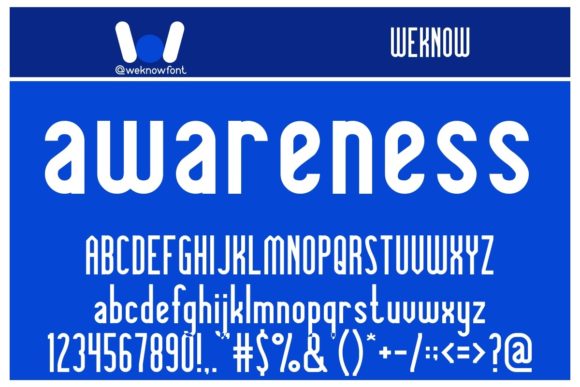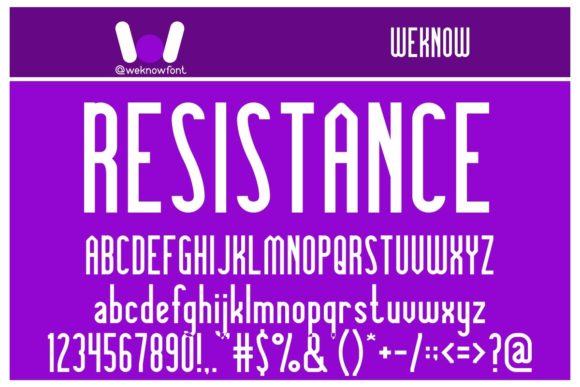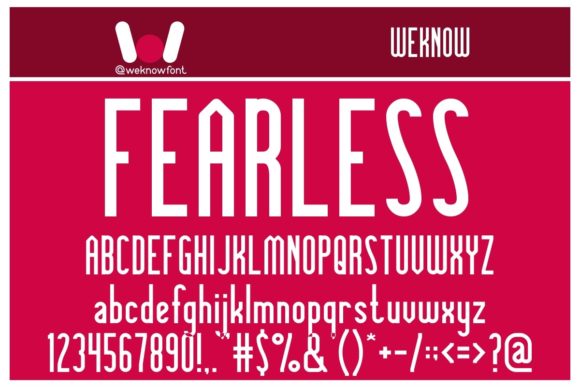
Introduction to Knowledge Power Font
Have you ever found yourself scrolling through a stunning website, and suddenly, a bold and eye-catching headline stops you in your tracks? That’s the magic of a well-chosen font, and the Knowledge Power Font is here to make your creative projects shine.
| 👤 Author | weknow |
As a designer, you know how crucial it is to have the right tools at your disposal to bring your ideas to life. That’s where the Knowledge Power Font comes in – a high-quality display font that’s perfect for logos, headlines, and any other design element that demands attention.
Key Features of Knowledge Power Font
- High-quality design: The Knowledge Power Font is designed with precision and care, ensuring a professional and polished look for any creative project.
- Transparent background: This font allows for easy customization and flexibility in design, making it perfect for designers who need a versatile design resource.
- High-resolution design: The font is designed at a high resolution (300 DPI), making it suitable for use in print materials, signage, and other high-quality applications.
- Unique characteristics: The Knowledge Power Font features a distinctive and modern design, with clean lines and a bold aesthetic that is sure to make a statement in any creative project.
Honest Review: Knowledge Power Font
I recently had the chance to work with the Knowledge Power Font, and I must say it’s been an interesting experience. As a designer, I’m always on the lookout for high-quality design resources that can elevate my creative projects.
One of the things that stood out to me about the Knowledge Power Font was its versatility. It’s a great choice for any project, from simple text-based designs to more complex, multi-element compositions. The font is also super easy to use, with a transparent background that makes it simple to layer and arrange elements.
Here are some of the things that I think work well with the Knowledge Power Font:
- ✨ Easy to read and understand, even in smaller sizes
- ✨ Versatile and can be used in a variety of contexts
- ✨ High-quality design that looks great on any background
- ⚠️ Limited character set, which may not be ideal for longer blocks of text
- ⚠️ Not ideal for use in situations where a bold, eye-catching font is needed
Overall, I think the Knowledge Power Font is a solid choice for designers looking for a high-quality, easy-to-use design resource. While it may not be perfect for every project, it’s definitely worth considering for any free download.
Tips for Getting the Most Out of Knowledge Power Font
Use the font in conjunction with other high-quality design resources to create a cohesive and visually appealing design.
Experiment with different font sizes and styles to find the perfect combination for your creative project.
The Knowledge Power Font is perfect for use in a variety of creative projects, including presentations, reports, and marketing materials.
Its high-quality design and transparent background feature make it an ideal choice for designers and non-designers alike.
Is Knowledge Power Font a high-quality font?
Yes, the Knowledge Power Font is designed to be a high-quality, professional font suitable for various design applications, including logos, headings, and body text. Its clean and modern design makes it an excellent choice for designers working on creative projects, and its high-resolution format ensures that it will look great on any device or screen resolution.